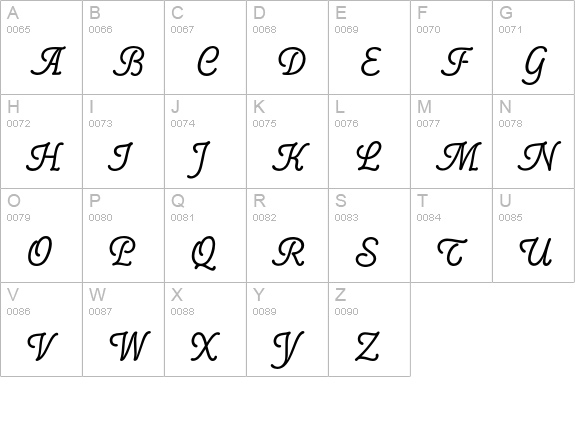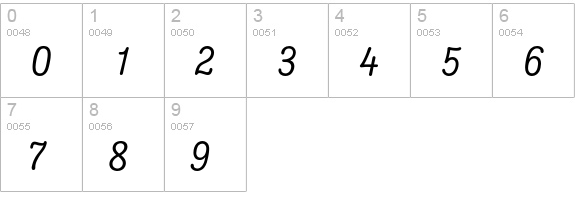
Poppl College Two BQ Regular is the standard, neutral variant in the Poppl typeface family \xE2\x80\x94 well suited to general body text, paragraphs, and standard typographic work.
Poppl College Two BQ Regular is a versatile and modern font that exudes sophistication and professionalism. With its clean lines and stylish design, this font is perfect for a wide range of design projects, from branding to editorial layouts. Its timeless appeal makes it a popular choice among designers looking for a classic yet contemporary typeface. What sets Poppl College Two BQ Regular apart is its seamless blend of elegance and functionality. Whether used in print or digital media, this font delivers a polished and refined look that commands attention. Its balanced proportions and legible letterforms make it an ideal choice for conveying information clearly and effectively. Best of all, Poppl College Two BQ Regular is freely available to download at FontsMarket.com. This means you can easily access this high-quality font for your projects without any cost, making it a valuable addition to your design toolkit. Download Poppl College Two BQ Regular today and elevate your designs with this timeless and versatile typeface.